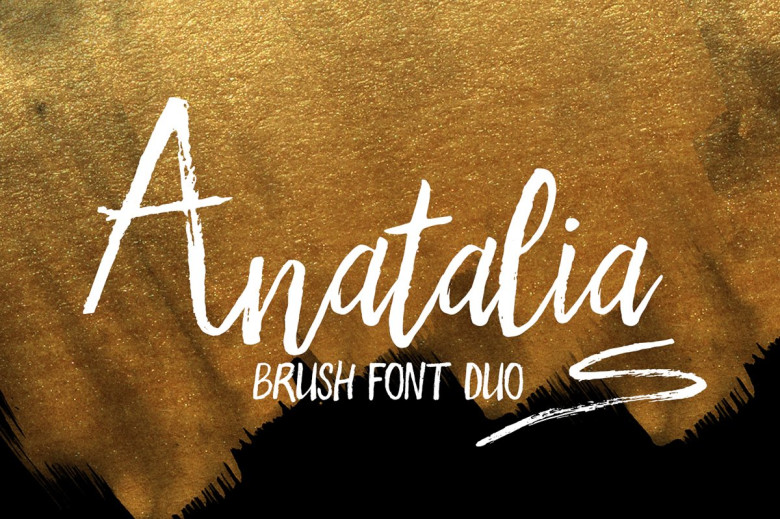
Anatalia Brush Duo Font
Resume is a perfect Font Brush Duo. Anatalia Brush Duo Font designed and shared by Bowery Studio design. Anatalia Brush font duo is a hand brushed font. Realistic quick dry stroke gives natural performance to the font. Perfect for designing book covers, film covers, apparel, cards, logos, posters, etc. Opentype features gives you more alternatives in designing.